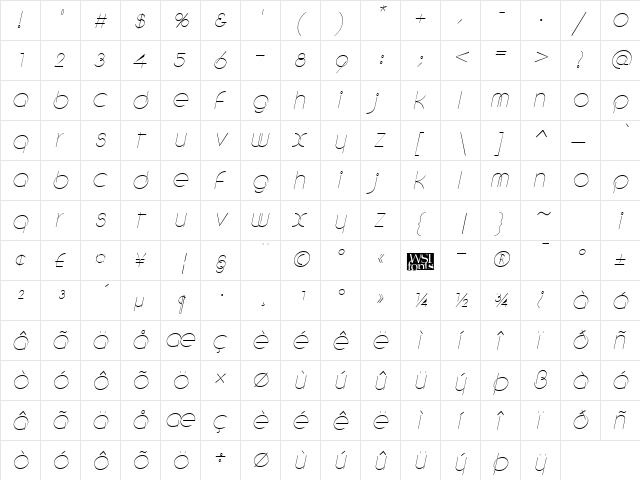
DebevicCircular Italic Font Preview
DebevicCircular Italic
DebevicCircular Italic Font Details
Design Context for DebevicCircular Typeface
DebevicCircular takes a measured approach to typography — its balanced proportions and neutral character make it a reliable workhorse for both digital and print work. The dynamic lean of this cut emphasises speed and emphasis in any layout.